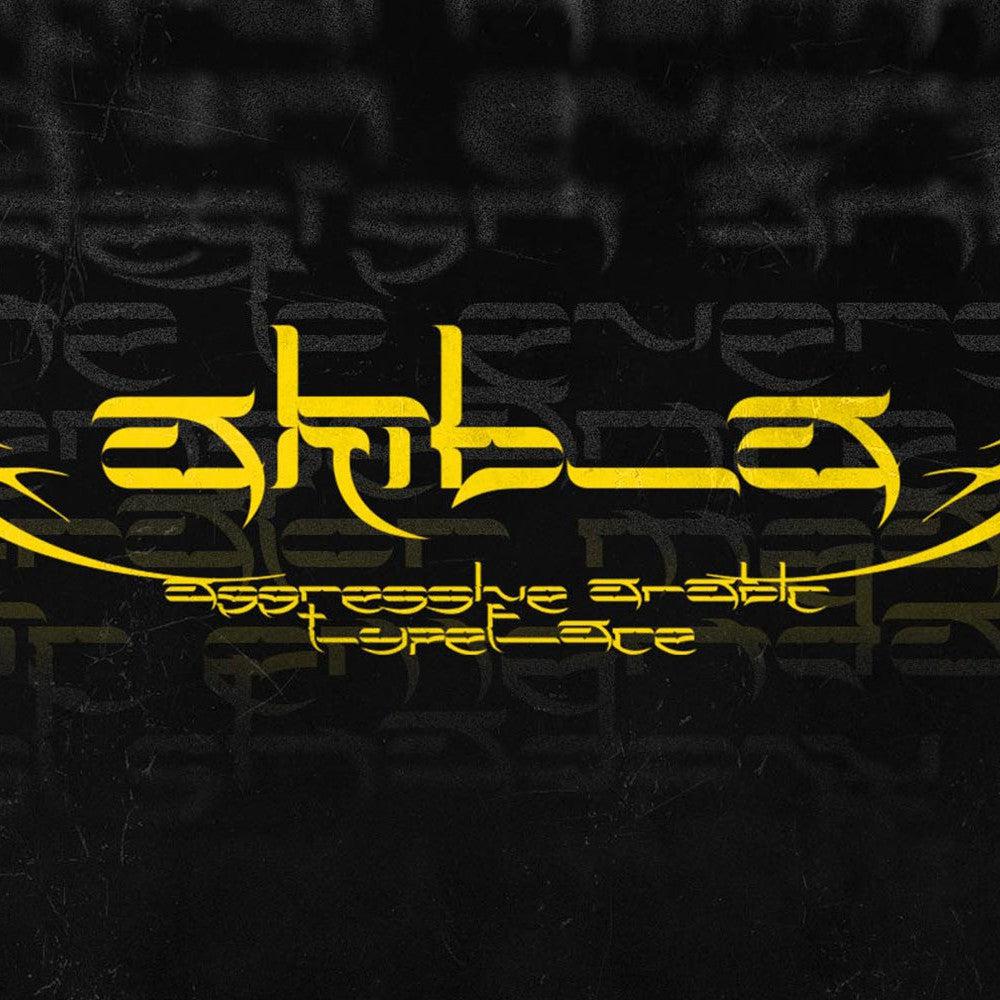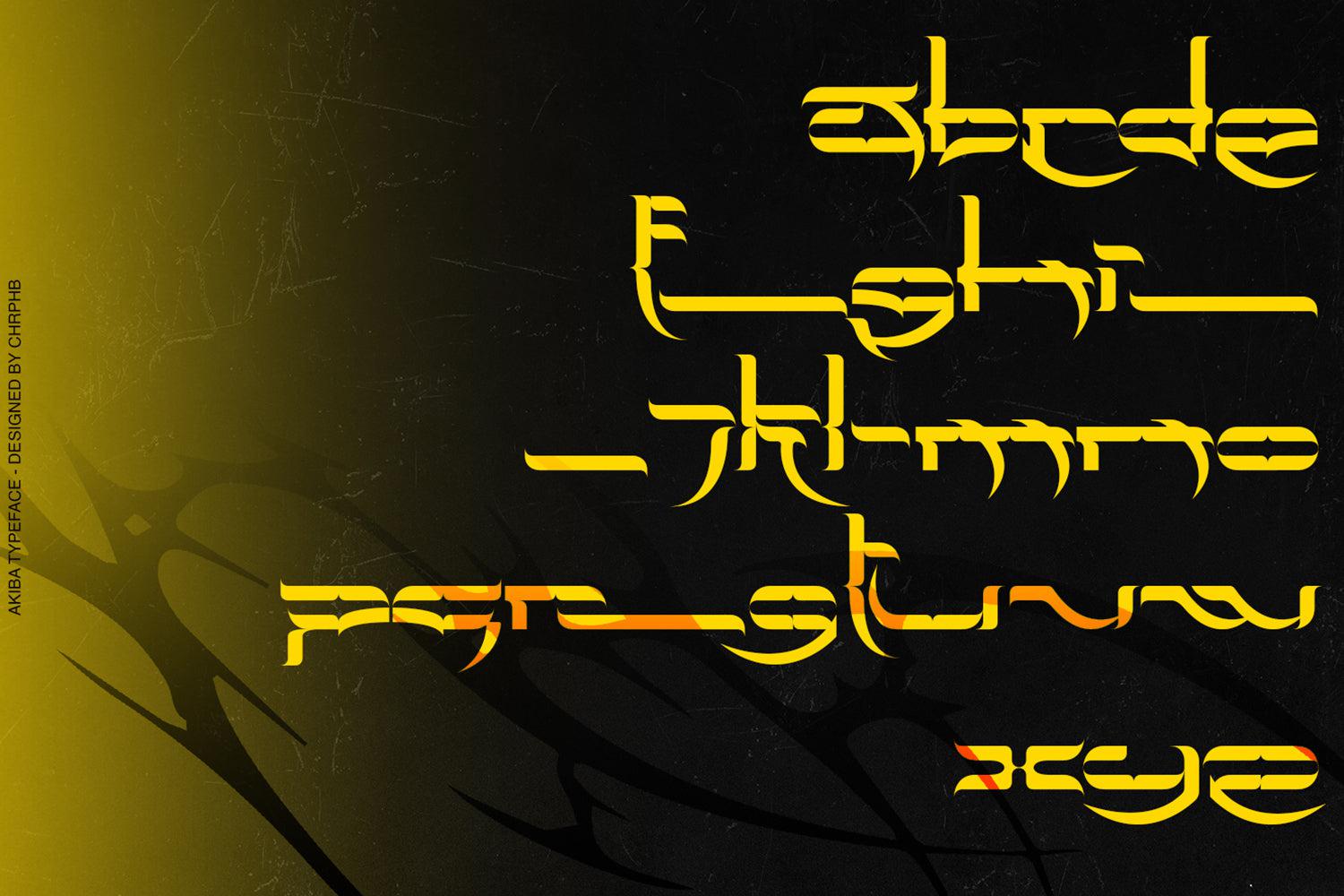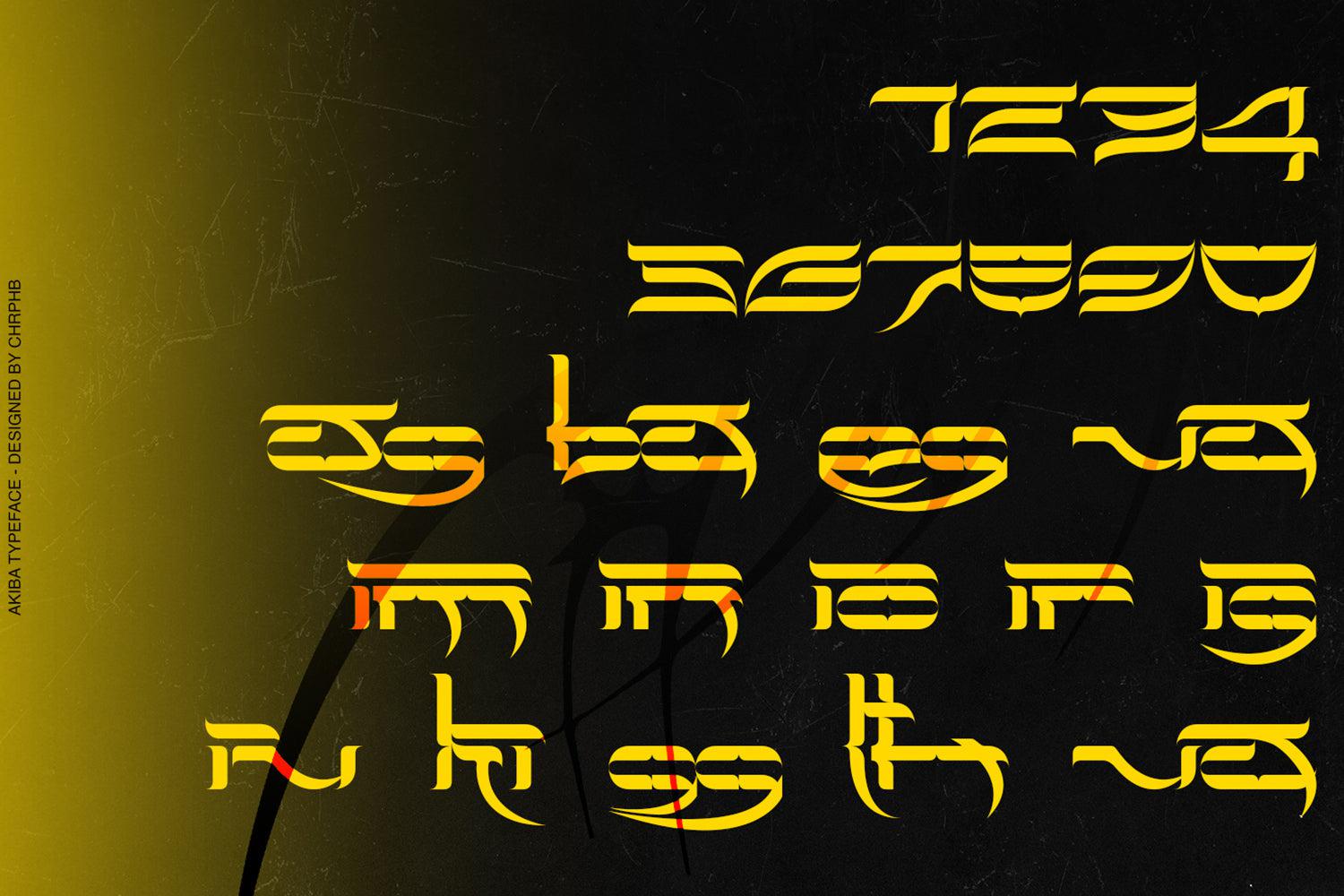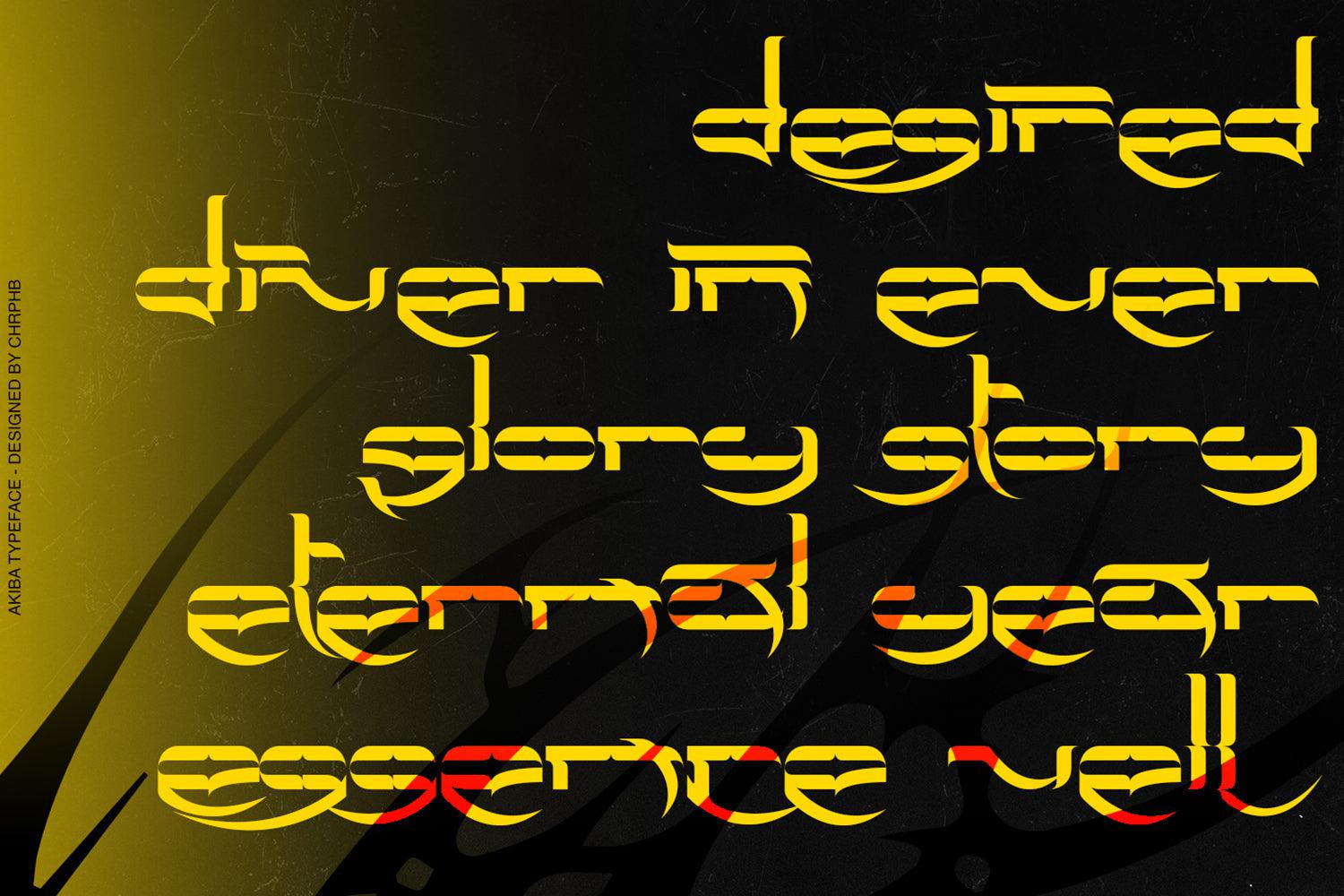
Akiba Typeface
The Akiba Typeface is a modern, crisp font that combines the horizontal style of Arabic script with a sharp aesthetic. It is designed for extended coverage in various mediums like posters, album artworks, and clothing, and is supplied in .otf format.
Ideal for modern Arabic typography and contemporary graphic design. Perfect for posters, album artworks, and clothing branding, ensuring a sharp and engaging visual impact.